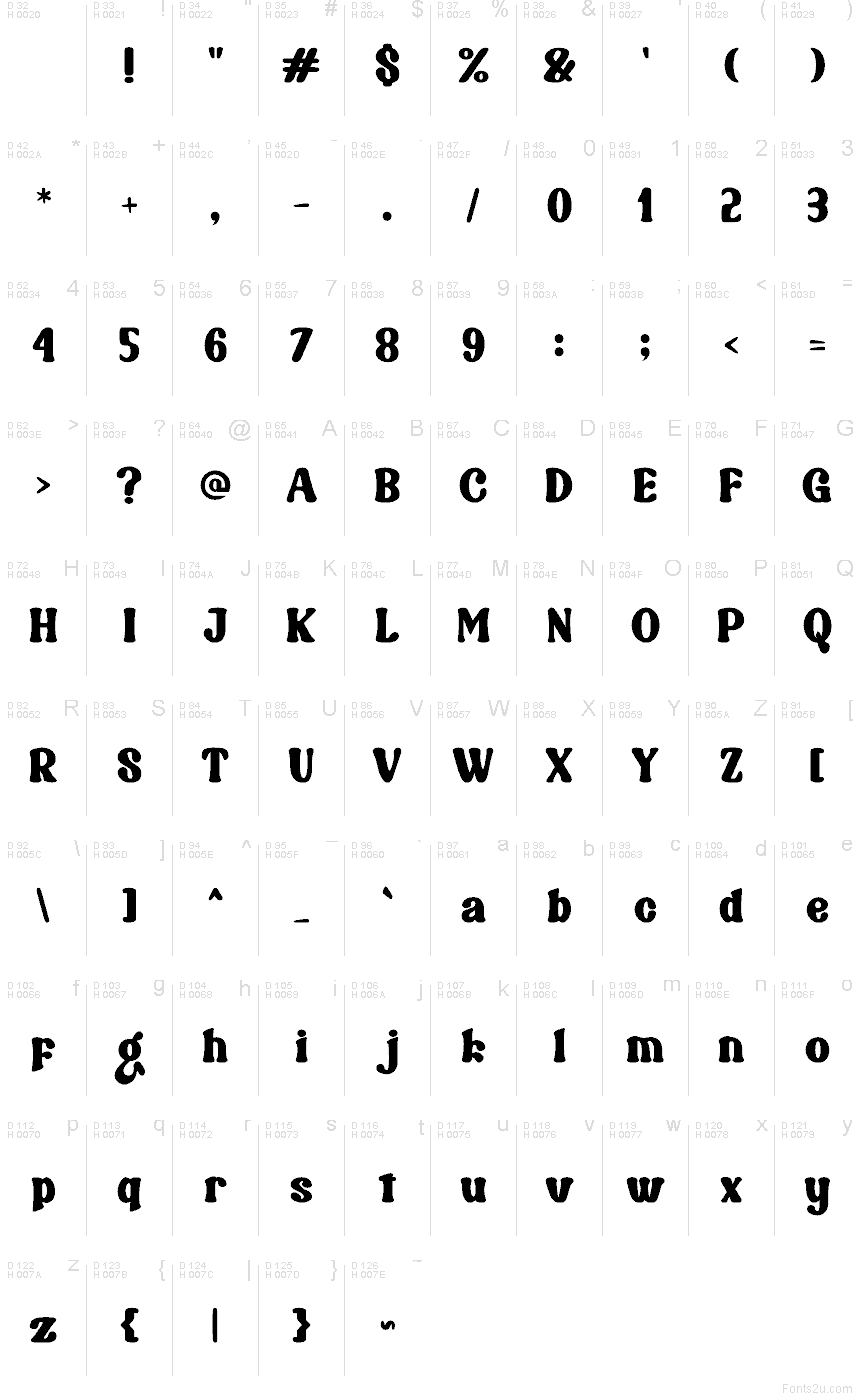
Bulgia
Bulgia font by Suhadidesign is a free retro display typeface with big, inky curves and a deliciously bouncy rhythm. Its chunky forms feel hand-poured rather than drawn, with soft bulbous shapes and that playful looping tail that gives the wordmark a groovy, almost psychedelic energy. Letters sit close and cozy, creating a bold, unified silhouette that grabs attention even at a glance.
Using Bulgia, you get an instant throwback to ’60s and ’70s posters without feeling dusty or cliché. This free font shines on branding for cafes, artisan snacks, and beauty products, as well as posters, stickers, social graphics, packaging, and bold logotypes. Pair Bulgia with a clean geometric sans in small text to keep things readable while letting those retro curves take the spotlight.